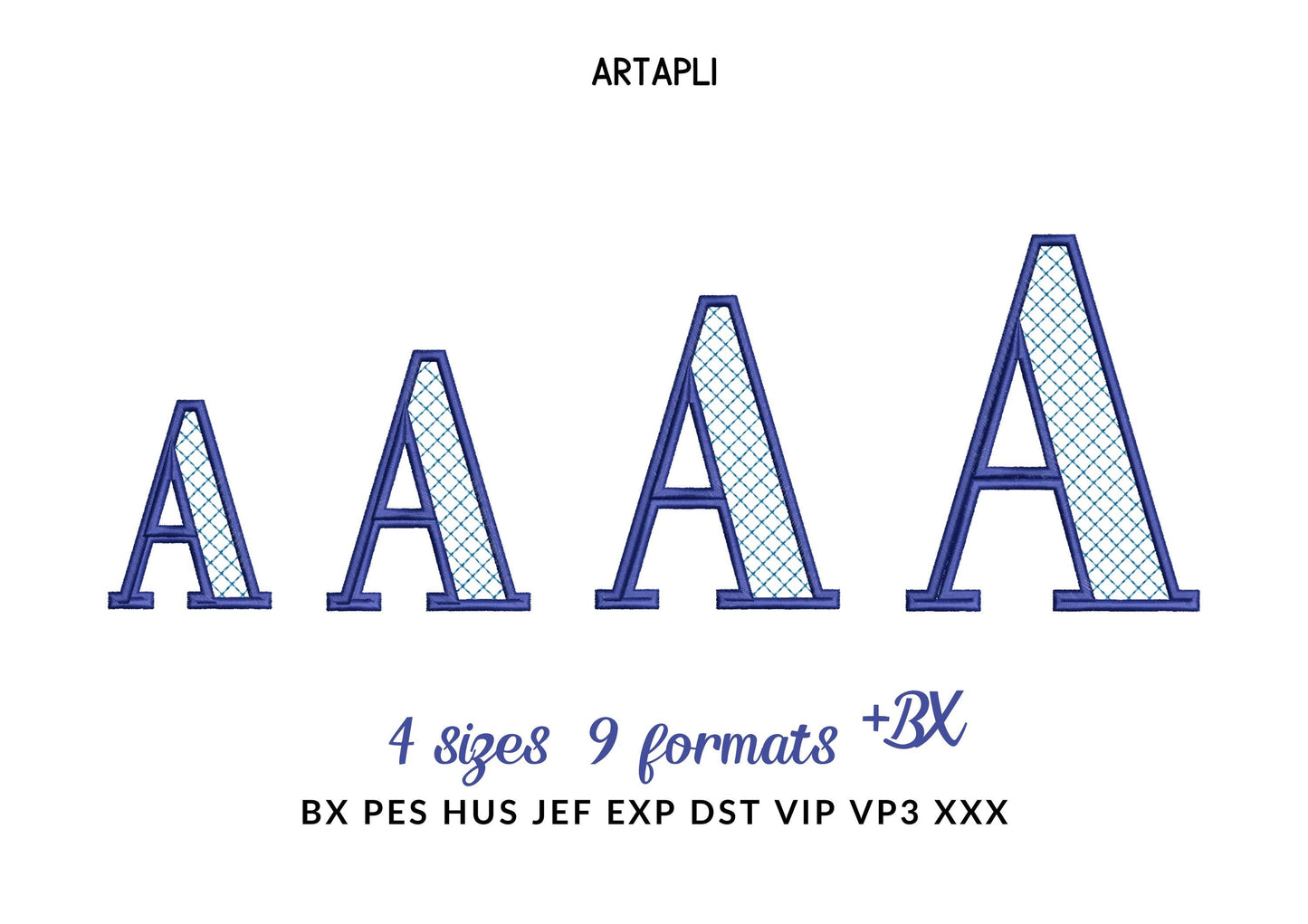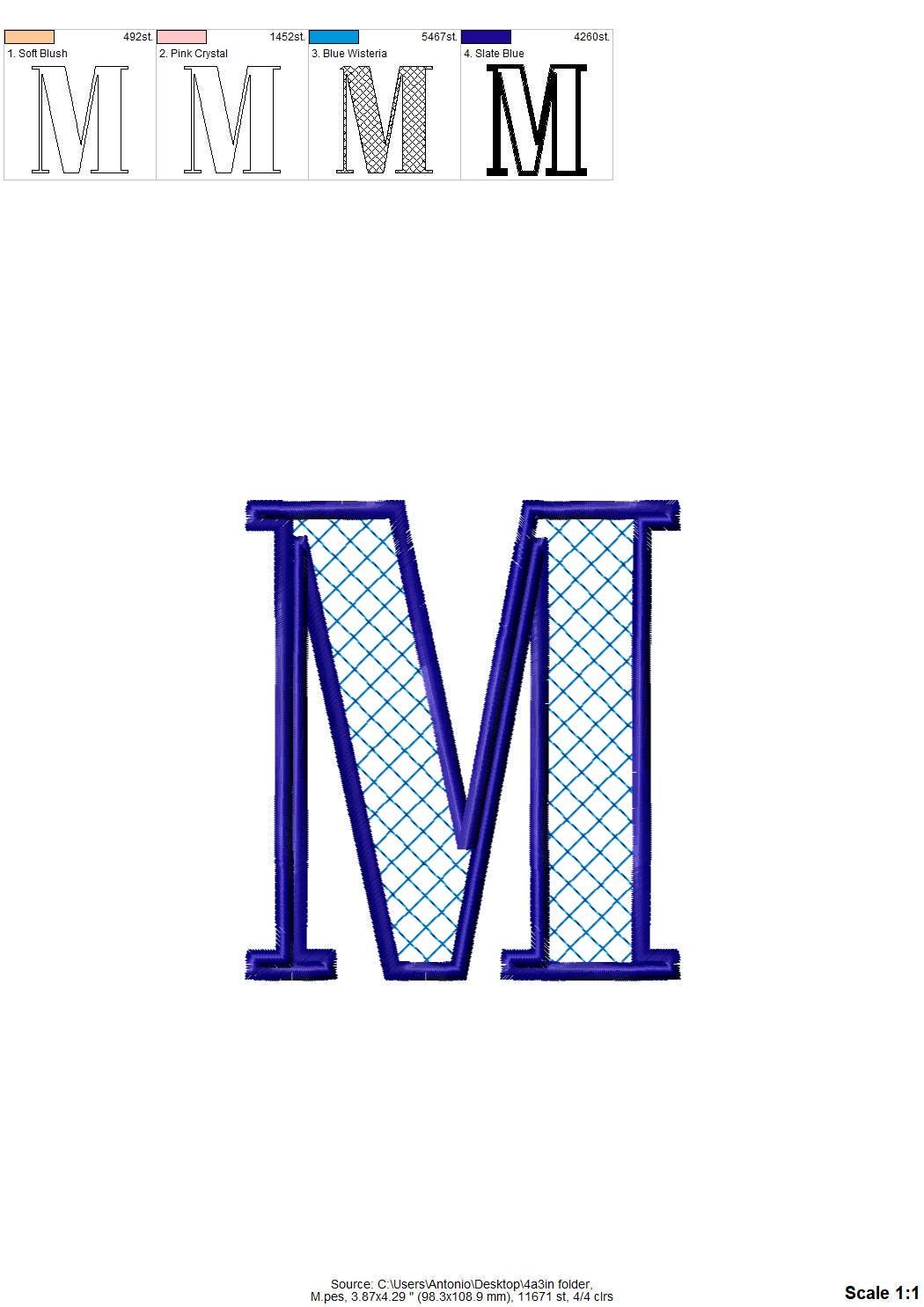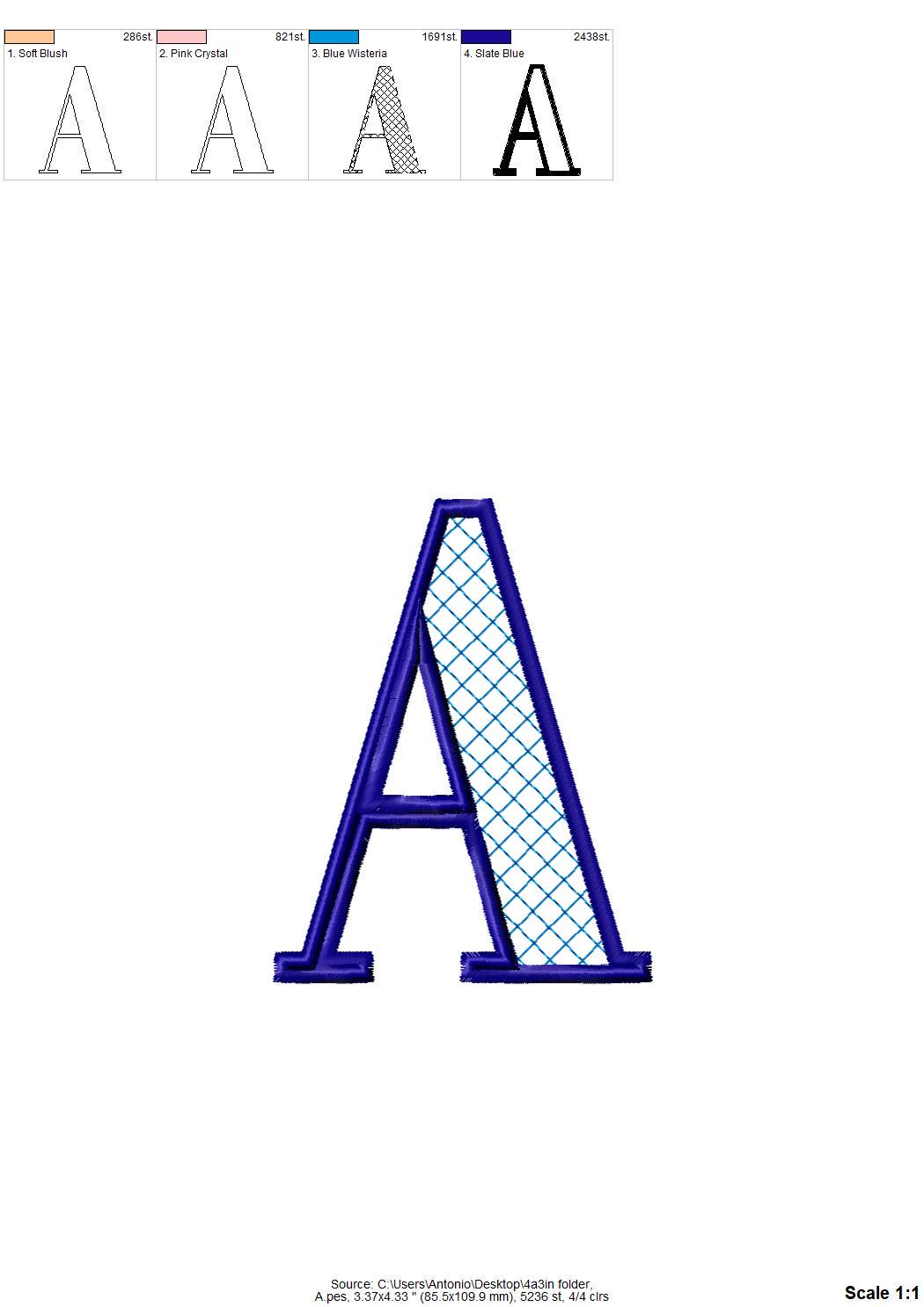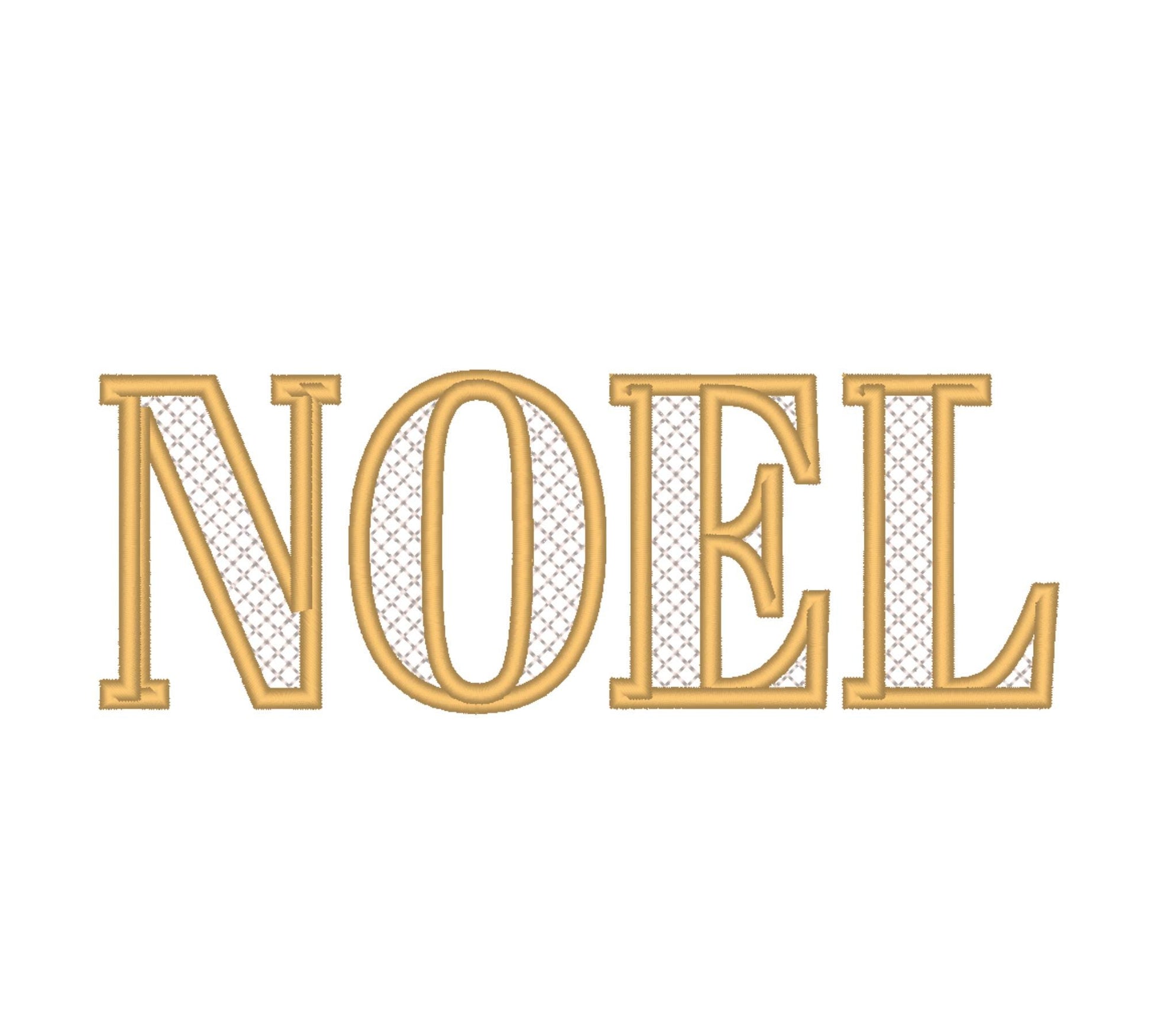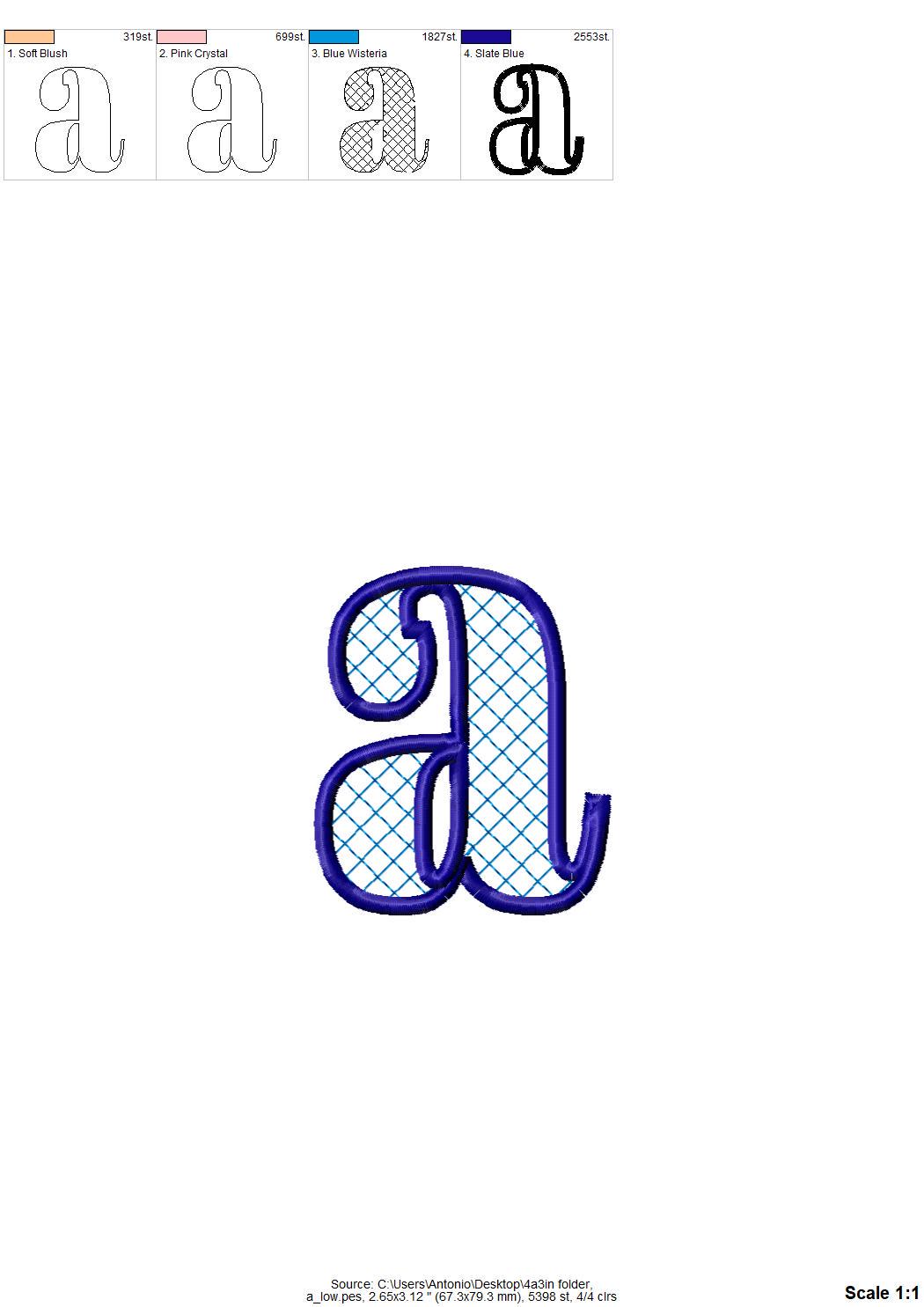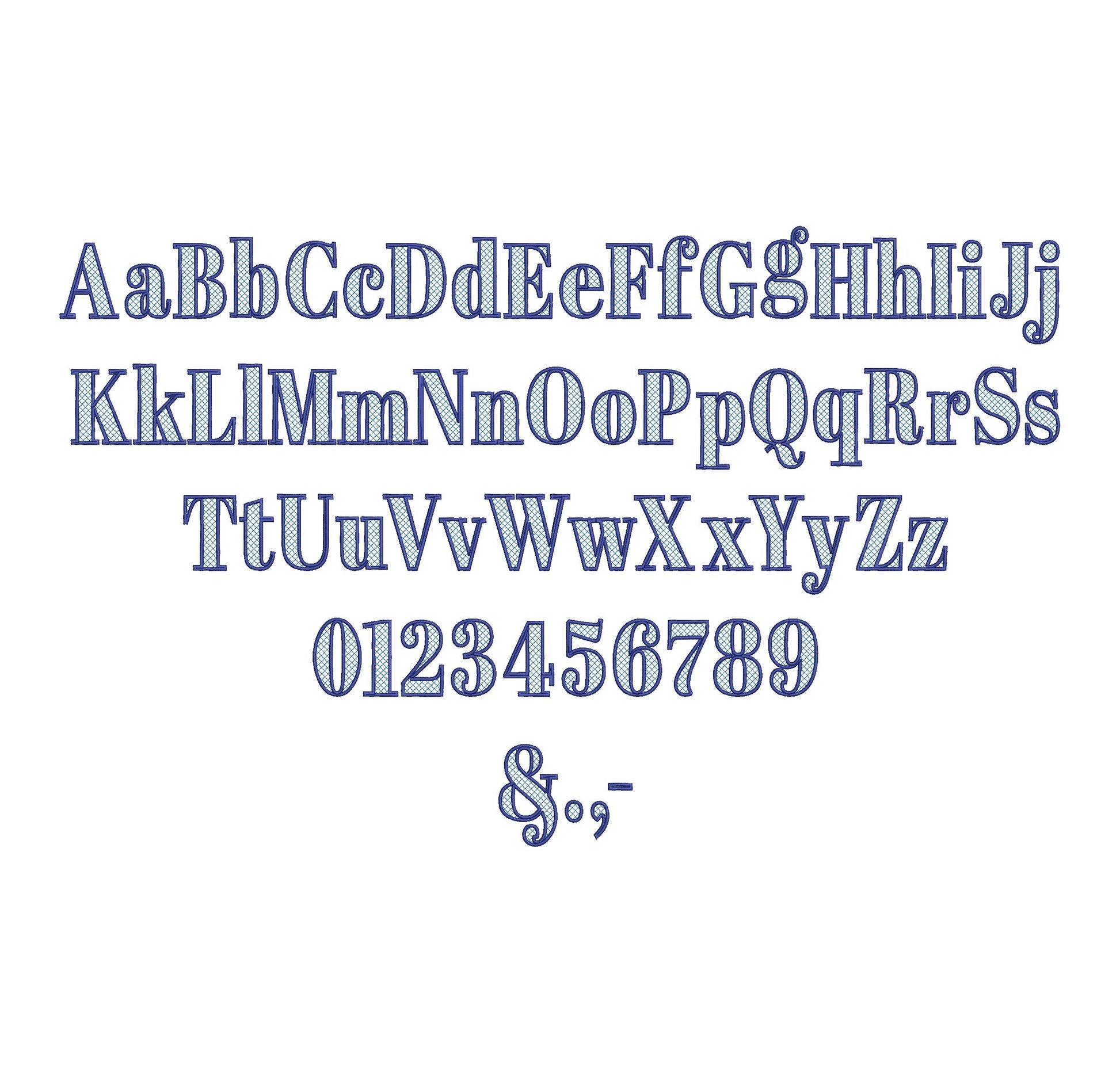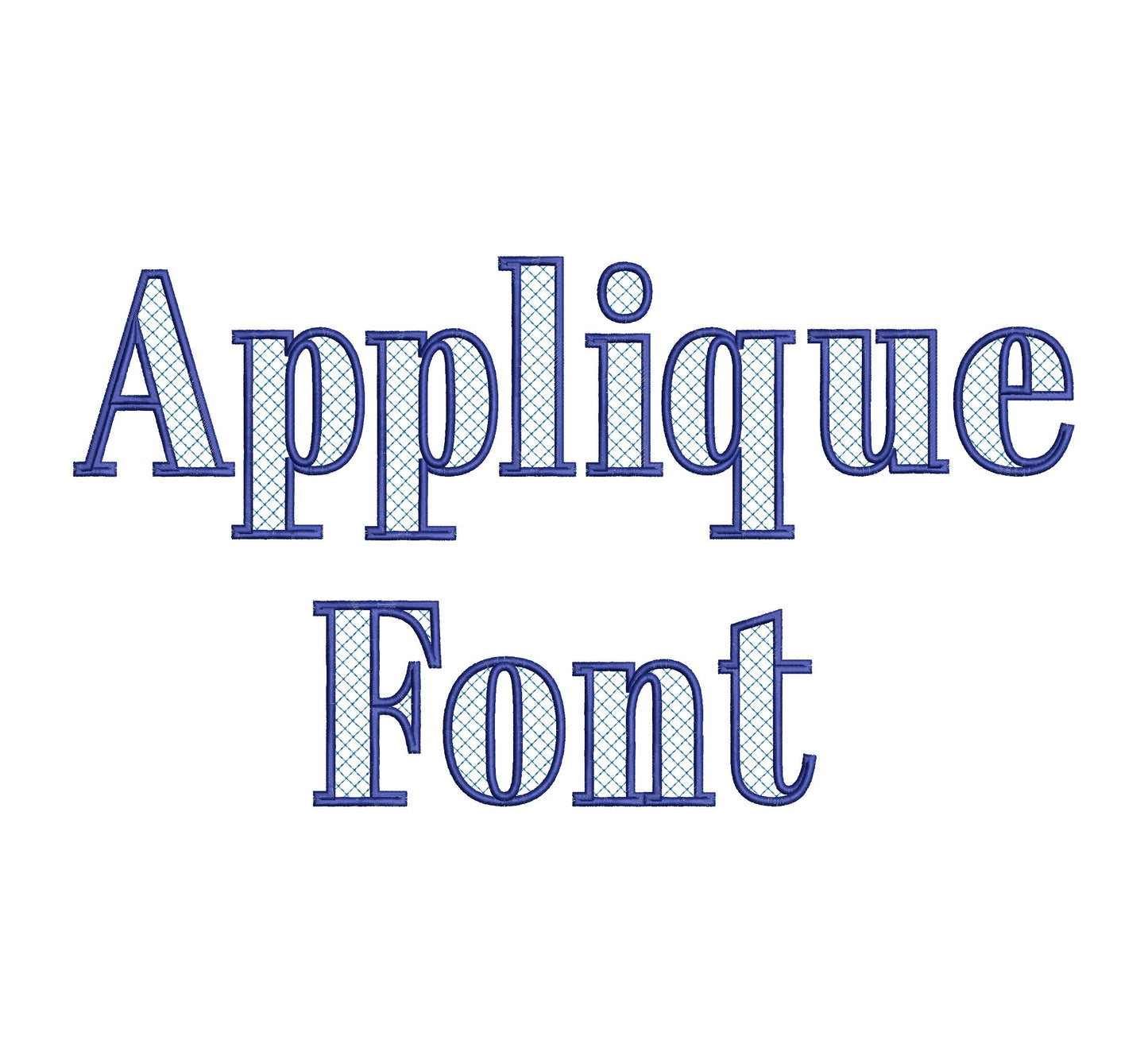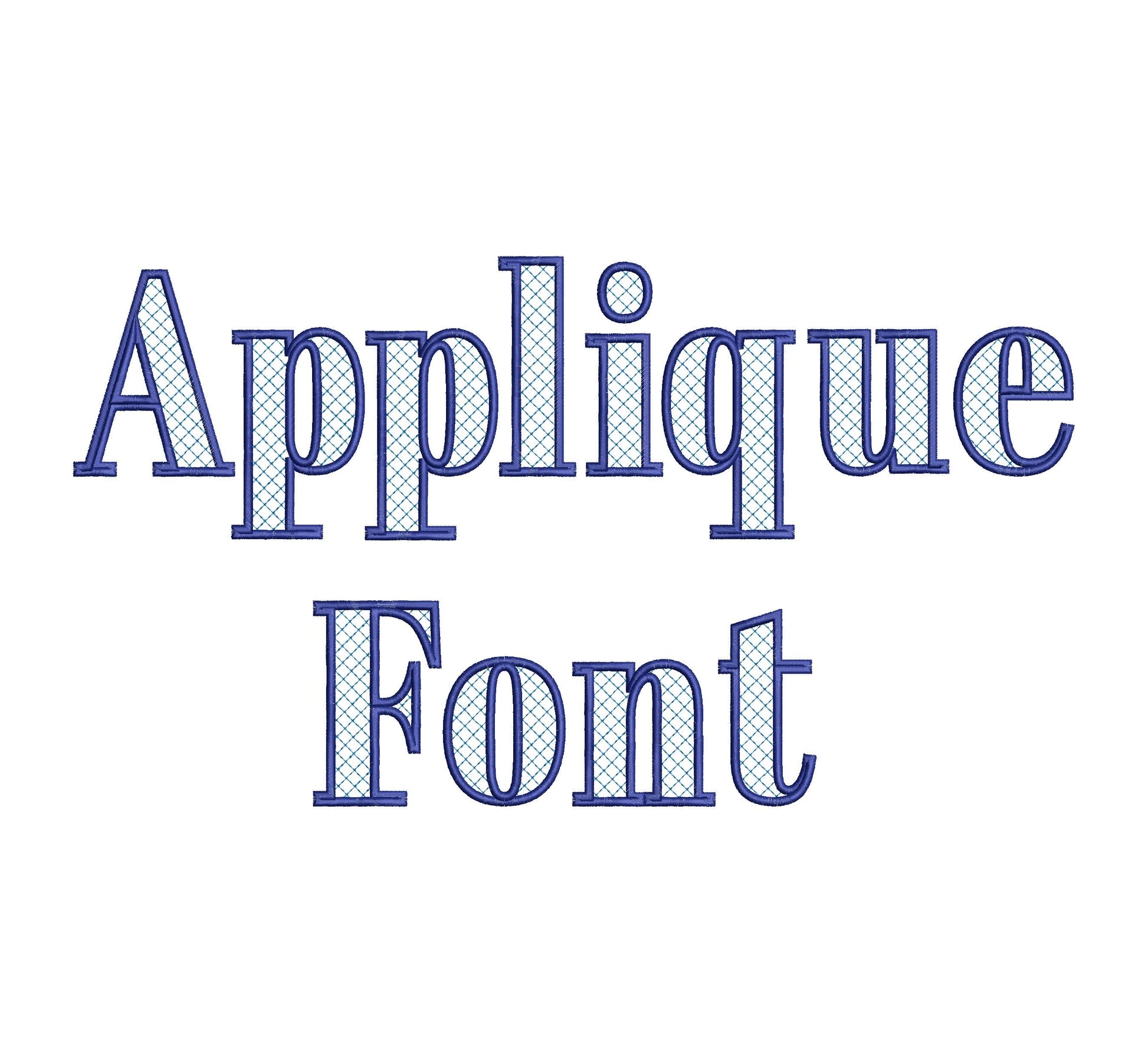
Or click to open the linkNoel, an elegant block applique font with a check pattern and outline; the checks are part of the stitching and the fabric shows through. Great for big names, pillows and holiday decor.
Uppercase and lowercase letters, numbers 0 to 9 and punctuation, in four big sizes: 2.9, 3.6, 4.3 and 5.2 inches.